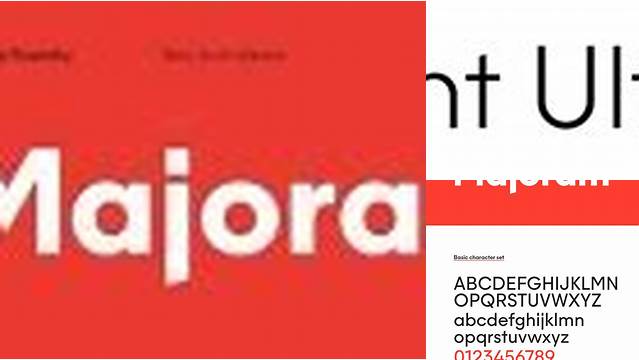
Majorant Font: A Stylish & Free Design Choice
Hey everyone! Today, we're diving deep into the world of typography, and specifically, we're going to explore the awesomeness of the majorant regular free font. This font has been making waves in the design community, and for good reason! It's versatile, stylish, and best of all, completely free for both personal and commercial use. So, if you're a designer, a student, a blogger, or just someone who loves a good font, stick around. We'll be uncovering everything you need to know about Majorant, from its unique characteristics to how you can seamlessly incorporate it into your projects. Let's get started!
H2: The Allure of a Free Majorant Regular Font: Why Designers Love It
Alright, guys, let's talk about why the majorant regular free font has captured the hearts of so many designers. Firstly, the price is right – zero dollars! Free fonts are a lifesaver, especially for those just starting out or working on tight budgets. But it's not just about the cost. Majorant boasts a clean, modern aesthetic that's perfect for a wide range of projects. Think about it: a font that can adapt to websites, branding materials, presentations, and even print designs. That's the beauty of Majorant! Its versatility makes it a go-to choice for designers who need a reliable and stylish font. Moreover, the design itself is incredibly legible, ensuring that your message is clear and easy to understand. In a world saturated with information, readability is king, and Majorant delivers. Its well-defined letterforms and balanced proportions make it a breeze to read, whether you're using it for headlines or body text. This is a crucial element for a good user experience and effective communication. Furthermore, the availability of a regular weight is often a starting point for designers, and the availability of the font in a regular weight allows it to be used in various projects without the need for additional styles. The user can then consider other font variations if desired. The fact that Majorant is open-source also contributes to its popularity. It fosters a sense of community, allowing designers to contribute to the font's development and even create their own customized versions. The Majorant font represents more than just a font; it is an open-source movement that is constantly evolving and improving.
Now, let's look at it from a technical perspective. The design's careful construction ensures that it renders beautifully on various screens and devices. This is essential in today's digital landscape, where designs need to be responsive and adaptable. The majorant regular free font is designed to look great, no matter where your audience sees it. It's a font that doesn't just look good; it functions well. This blend of style, functionality, and cost-effectiveness is precisely why designers keep coming back to Majorant. It's a workhorse font that delivers on all fronts, providing a solid foundation for any design project. It is, therefore, a popular choice that meets the needs of most graphic design projects.
H2: Majorant Regular Font's Design and Character: Decoding Its Essence
So, what exactly makes the majorant regular free font so visually appealing? Let's break down its design characteristics. First off, it’s a sans-serif font, which means it doesn't have those little strokes (serifs) at the ends of the letters. This clean, modern look gives it a sleek and contemporary feel. This simplicity is its strength, making it adaptable to various design styles. Majorant’s letterforms are thoughtfully crafted, with a focus on geometric shapes and balanced proportions. This results in a harmonious and visually pleasing aesthetic. The font features a good x-height, which contributes to its excellent readability, even at smaller sizes. The x-height is the height of the lowercase letters, and a generous x-height makes the font easier to read, especially in body text. It ensures that the letters are distinct and clear, preventing any confusion. The majorant regular free font also features a neutral personality. It doesn't lean too heavily in any one direction, making it suitable for a wide variety of brands and projects. It is designed to be a versatile tool rather than a style statement. This neutrality also makes it easier to pair with other fonts. It’s a great supporting font that doesn't compete for attention. It complements other fonts well, making it perfect for creating diverse typographic compositions. Furthermore, the font's consistent weight distribution throughout the characters ensures that the text appears balanced and consistent. This attention to detail is evident in the way the font renders on screen and in print. This is especially important when used for headlines or display text. This consistency contributes to the overall visual appeal of the font and enhances the reader's experience. It also provides a sense of professionalism and attention to detail. In general, the majorant regular free font provides a clean, modern, and versatile design which is both functional and aesthetically pleasing, making it a valuable asset for any designer’s toolkit.
H2: Majorant Regular Font vs. Other Free Fonts: A Comparative Analysis
Alright, let's put the majorant regular free font up against some other popular free font options. This comparison will help you understand its strengths and weaknesses in relation to its competitors. One common comparison is with Open Sans, another widely used sans-serif font. Open Sans is known for its excellent readability and versatility, similar to Majorant. However, Majorant may have a slightly more modern and geometric feel, while Open Sans can appear a bit more rounded. Both are excellent choices for body text and headlines. Next, let's consider Montserrat, a popular choice for its clean and elegant design. Montserrat offers a wider range of weights and styles compared to Majorant. Montserrat might be a better choice if you need extensive typographic variations. However, Majorant is a good, simpler alternative if you need a clean design. Another contender is Lato, which is known for its friendly and approachable personality. Lato is a versatile font suitable for a variety of applications. It may be slightly less formal compared to Majorant. Majorant is slightly more neutral and would fit in with a wider range of projects. When comparing the majorant regular free font with these other options, its simplicity and geometric design stand out. It excels in its neutrality and adaptability. Also, the selection of the correct font depends on the specific project requirements. While Open Sans offers strong readability, Montserrat has more stylistic options, and Lato provides a friendly feel. Majorant stands out for its clean, modern aesthetics and its simplicity. Consider the overall style and tone of your project. If you need a font that’s clean, modern, and highly legible, the Majorant font is a great choice. But, if you need a font with multiple weights, you might explore other options. By comparing fonts side-by-side, you'll be able to make an informed decision and select the perfect font for your project. This is all about finding the right tool for the job. Majorant is the perfect tool for a clean and simple design, while other fonts are better suited for other needs.